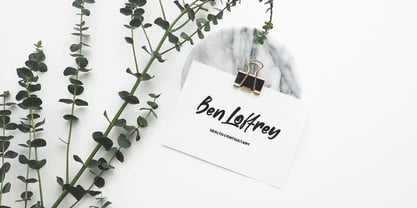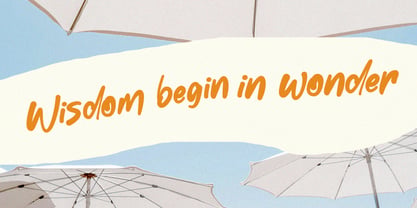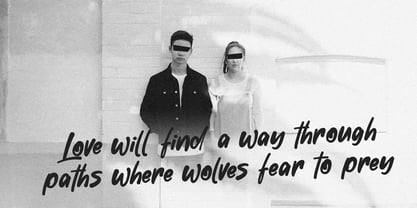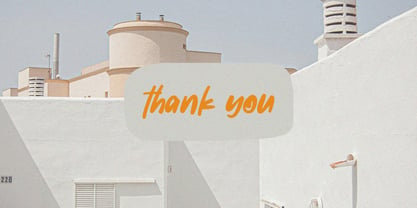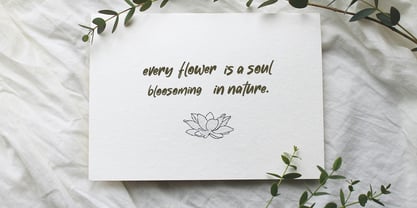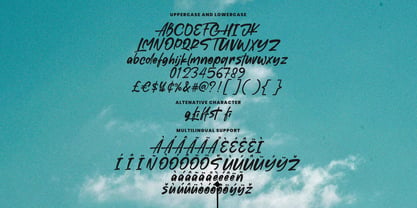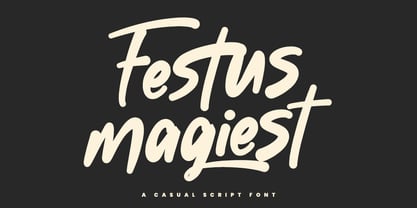
MC Festus Magiest
by Maulana Creative
The MC Festus Magiest Font Family was designed by Gilang Maulana and published by Maulana Creative. MC Festus Magiest contains 1 styles. More about this family
Give your designs an authentic handcrafted feel. “Festus Magiest Casual Script Font” is perfectly suited to stationery, logos and much more. Include alternative character and ligature characters.